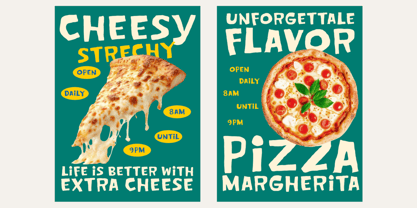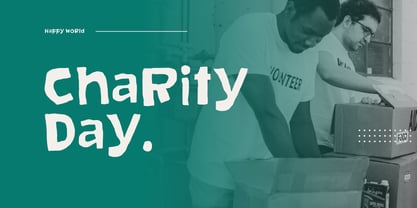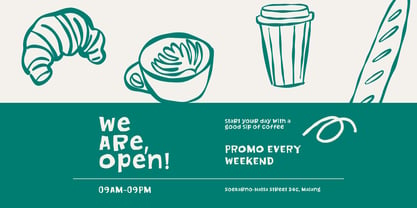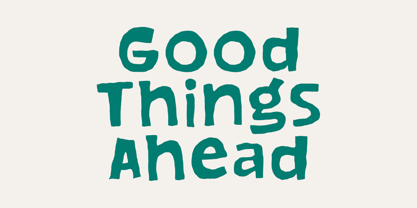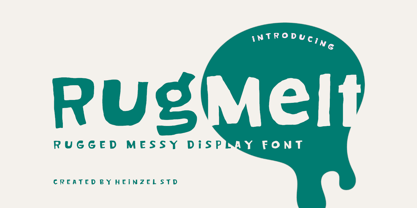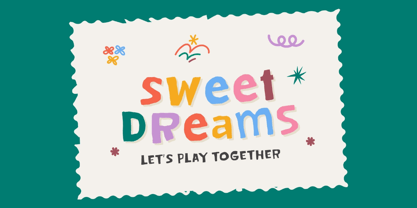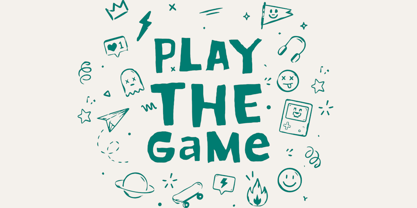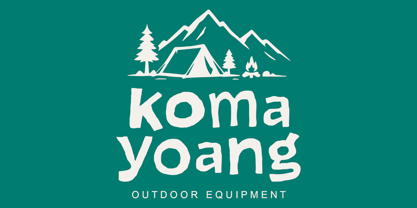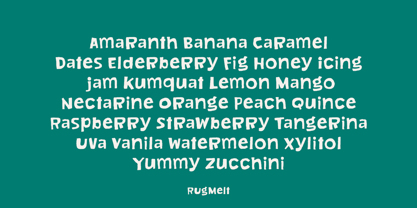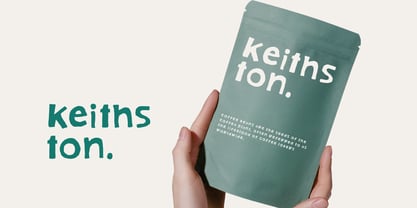
Rugmelt
by Heinzel Std
The Rugmelt Font Family was designed by Nofi Sofyan Hadi and published by Heinzel Std. Rugmelt contains 1 styles. More about this family
Rugmelt is a bold rugged display font with a messy handcrafted style designed to bring raw energy and playful character into your creative projects. Inspired by hand-painted lettering and imperfect organic shapes, this font delivers a strong visual impact with its chunky forms, uneven edges, and artistic personality. Perfect for posters, streetwear branding, packaging, album covers, logos, social media graphics, children’s designs, and bold editorial layouts, Rugmelt creates an expressive and eye-catching look instantly.
Designers: Nofi Sofyan Hadi
Foundry: Heinzel Std